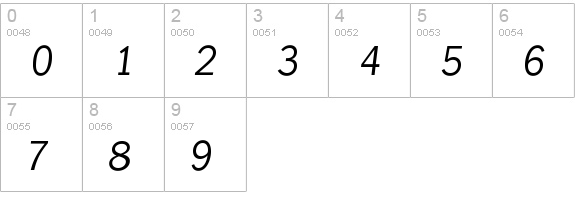
Plymouth-LightIta is a modern and elegant font that exudes sophistication and style. With its sleek lines and delicate curves, this typeface is perfect for adding a touch of class to any design project. Whether you're creating a logo, designing a website, or working on a print project, Plymouth-LightIta is sure to make a lasting impression. What sets Plymouth-LightIta apart is that it is not only stunningly beautiful but also completely free to use. You can download this font at FontsMarket.com without any cost, making it a valuable addition to your collection of design resources. Whether you're a professional designer or a hobbyist looking to elevate your projects, Plymouth-LightIta is a versatile and eye-catching font that will take your work to the next level.